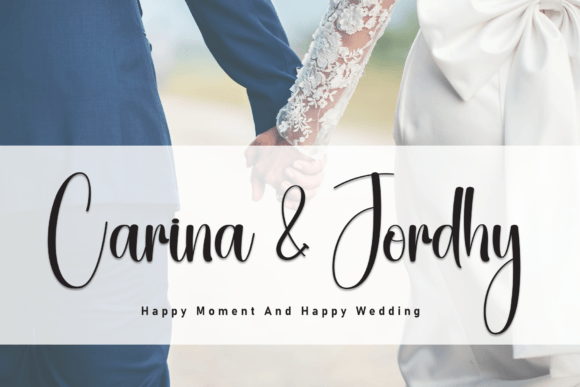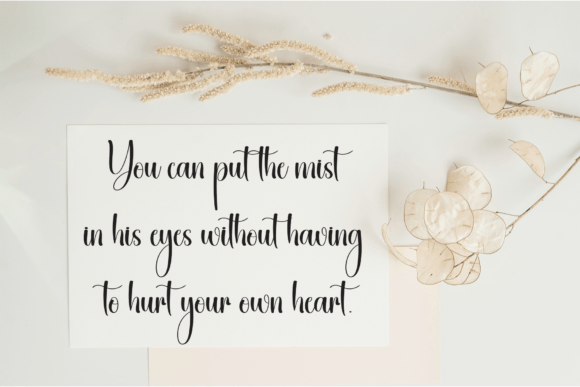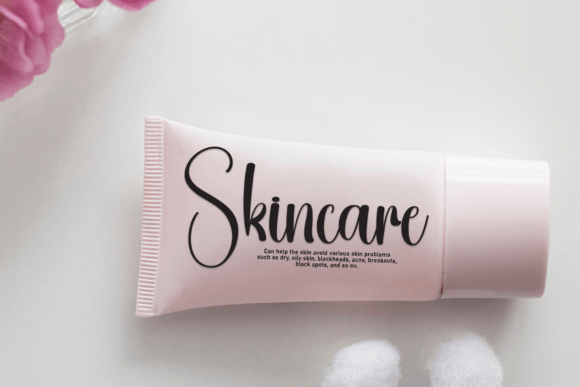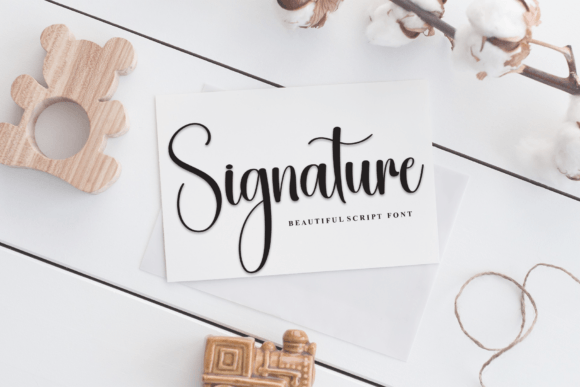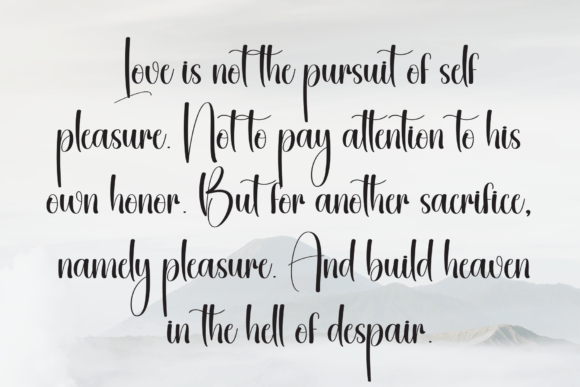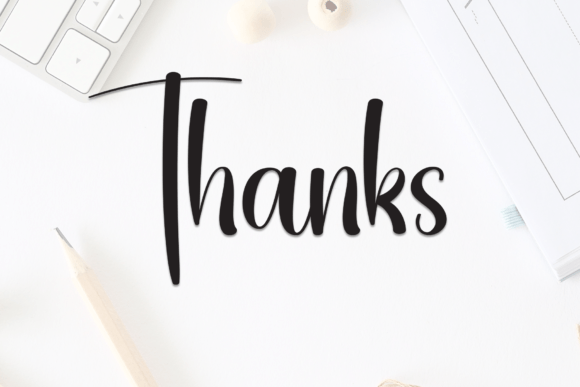
Discover the Charm of Creative Handwriting Font: Elevate Your Designs with a Timeless Touch
In the world of design, fonts play a crucial role in conveying messages, expressing emotions, and creating lasting impressions. Among the numerous font styles available, handwriting fonts have always been a favorite among designers and crafters. One such font that has captured the hearts of many is the Creative Handwriting Font. This lovely and timeless handwritten font is perfect for creating eye-catching logos, branding, and quotes that leave a lasting impact.
The Unique Charm of Creative Handwriting Font
What sets Creative Handwriting Font apart from other fonts is its distinctive and beautiful touch. Every letter in this font has been carefully crafted to exude a sense of elegance, warmth, and personality. The unique characteristics of each letter make it an excellent choice for designers who want to add a personal touch to their work. Whether you’re creating a logo, branding materials, or social media graphics, Creative Handwriting Font is sure to make your design come alive!
Endless Design Possibilities with Creative Handwriting Font
One of the most significant advantages of Creative Handwriting Font is its versatility. This font can be used in a wide range of design projects, from:
- Logos and Branding: Create a memorable and distinctive logo that reflects your brand’s personality and values.
- Quotes and Posters: Add a touch of elegance and sophistication to your inspirational quotes and posters.
- Social Media Graphics: Make your social media posts stand out with eye-catching graphics that showcase your brand’s unique voice.
- Stationery and Invitations: Add a personal touch to your stationery, invitations, and greeting cards.
Why Designers and Crafters Love Creative Handwriting Font
Designers and crafters love Creative Handwriting Font for several reasons:
- Timeless Appeal: This font has a classic, timeless quality that never goes out of style.
- Emotional Connection: The unique and beautiful touch of each letter helps create an emotional connection with the audience.
- Ease of Use: Creative Handwriting Font is easy to read and use, making it perfect for a wide range of design projects.
- Customization: The font’s versatility allows for endless customization possibilities, ensuring your design stands out from the crowd.
Tips for Using Creative Handwriting Font Effectively
Creative Handwriting Font is a lovely and timeless handwritten font that can elevate your designs to the next level. Its unique and beautiful touch makes it perfect for creating eye-catching logos, branding, and quotes that leave a lasting impression. With its versatility, ease of use, and endless customization possibilities, this font is a must-have for designers and crafters. So why wait? Discover the charm of Creative Handwriting Font and bring your designs to life!